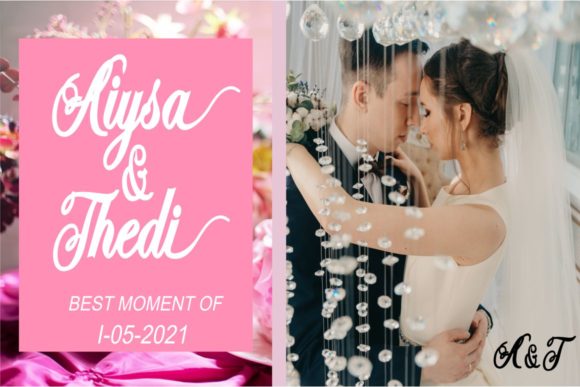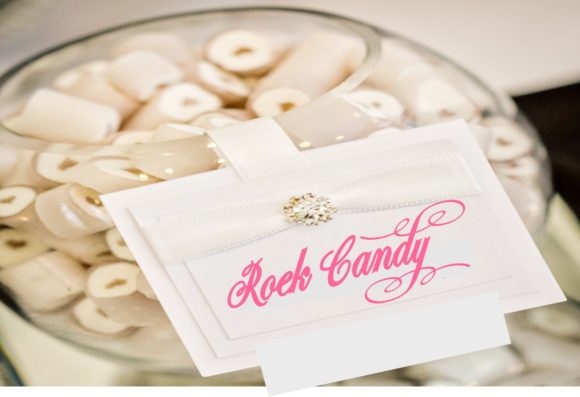
Nike Ardila Font
About Nike Ardila Font
Nike Ardila is gorgeous and elegant, but also authentic. This versatile script font has a wide range of applications ranging from calligraphy art to branding and is guaranteed to add a personal touch to your next design.